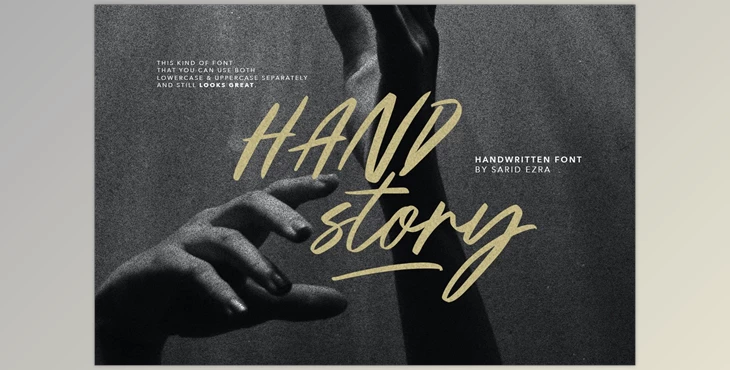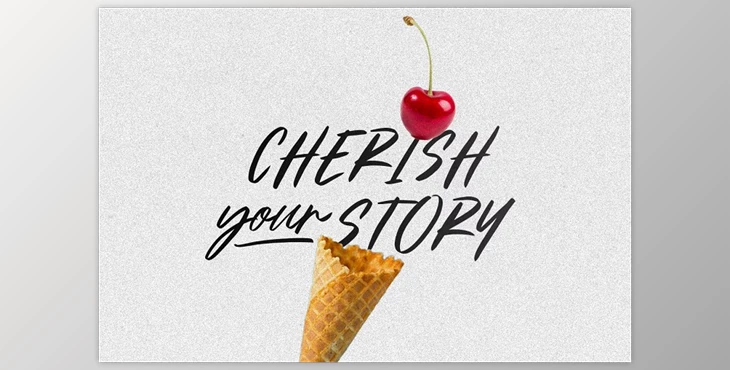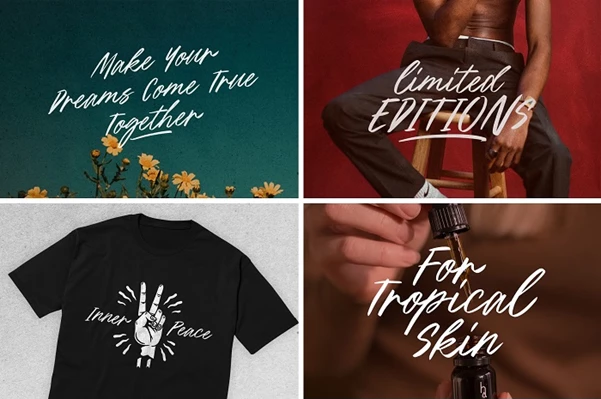
Handstory – Handwritten Font is a versatile brush script font designed for both upper and lowercase characters, ideal for various applications such as branding, logotypes, and quotes.
With its inclusion of ligatures and underlines accessible through OpenType features, it offers flexibility for creative designs. Additionally, it supports multilingual usage. This abstract also provides a brief mention of accessing further details about the font via the home page link.